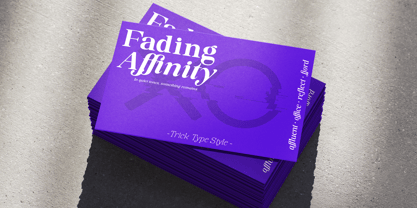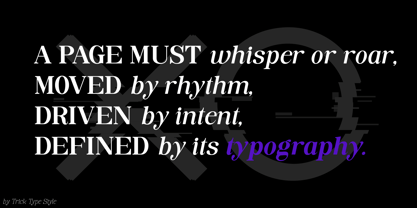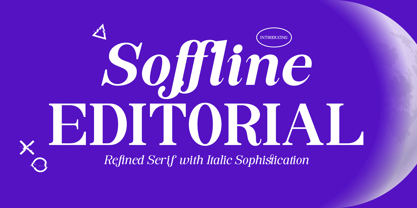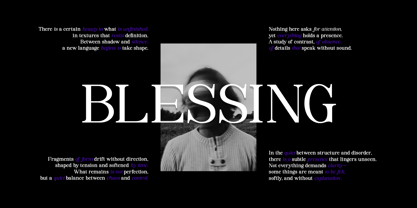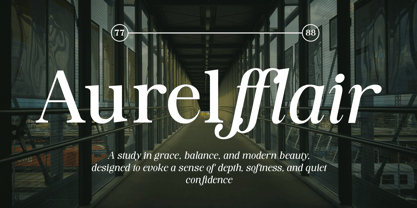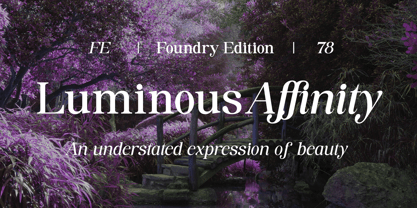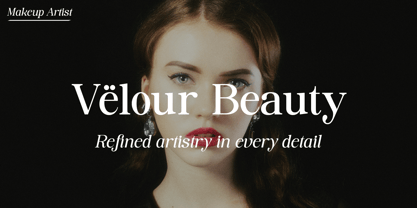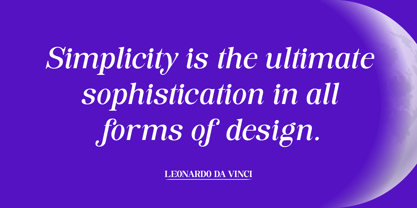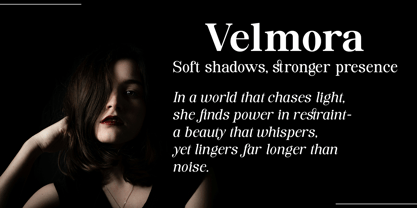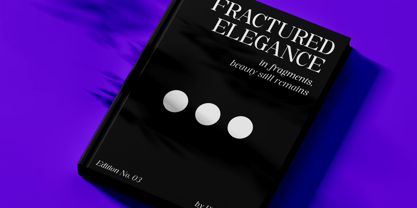
Soffline
by Trick Type Style
The Soffline Font Family was designed by Rizki Ramadhan and published by Trick Type Style. Soffline contains 162 styles and family package options. More about this family
Soffline is a refined serif typeface designed to bring elegance and clarity into modern editorial design. Crafted with a distinctive italic style, it delivers a graceful rhythm and sophisticated tone across every composition. This typeface comes as a variable font, offering flexible weight and width control—from condensed to expanded—allowing designers to explore a wide range of typographic expressions within a single family. Carefully built with expressive ligatures and balanced letterforms, Soffline Editorial is perfect for: editorial layouts, branding, luxury packaging, fashion campaigns, and high-end visual identities. A timeless serif with a contemporary soul—designed to elevate every word it touches.
Designers: Rizki Ramadhan
Foundry: Trick Type Style